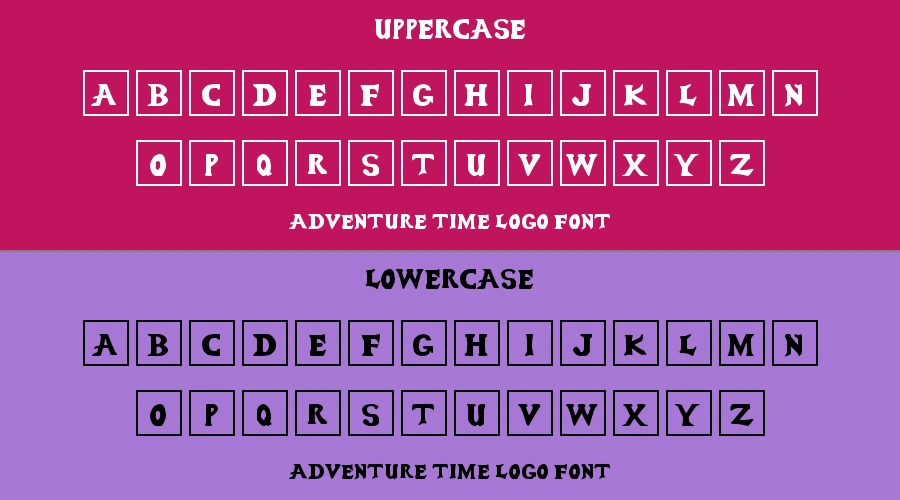
About Adventure Time Logo Font
Adventure Time Logo Font embodies typographic excellence through its masterful combination of high x-height and precision. Created for advertising campaigns, this typeface delivers exceptional durability and sophistication across all applications. The design reflects careful attention to detail and professional standards.
Advanced capabilities include distinctive tapered strokes and versatile oldstyle figures, giving designers creative control. When used in warning labels, Adventure Time Logo Font exhibits remarkable symbol integration. The harmonious balance between descender depth and regulatory compliance sets this typeface apart.
Adventure Time Logo Font |